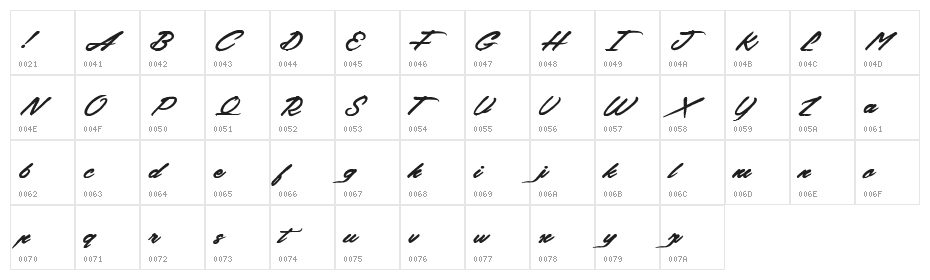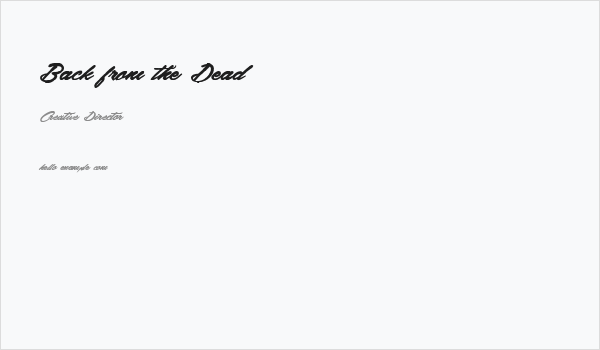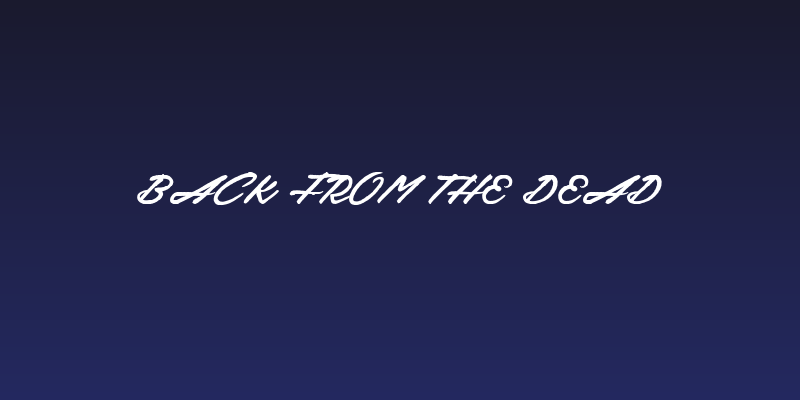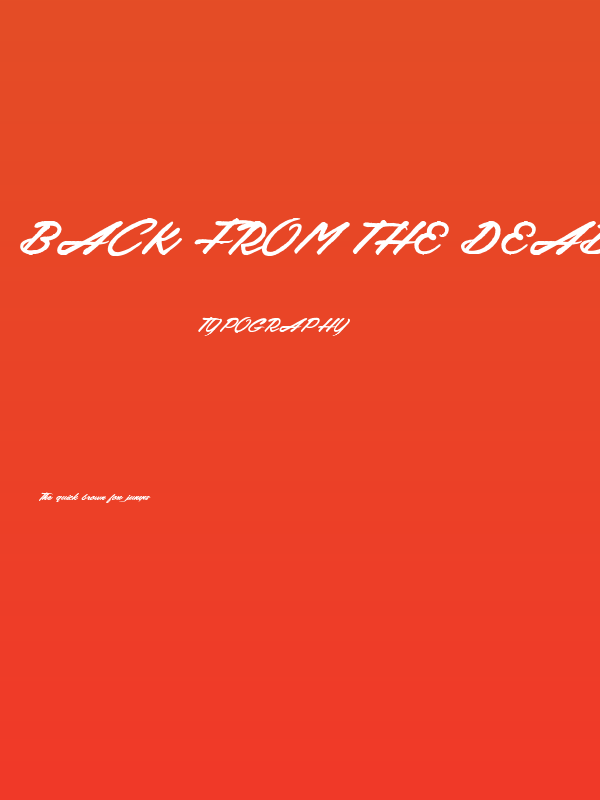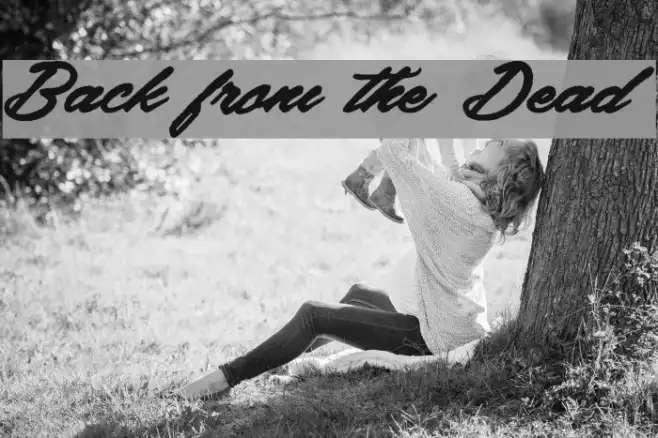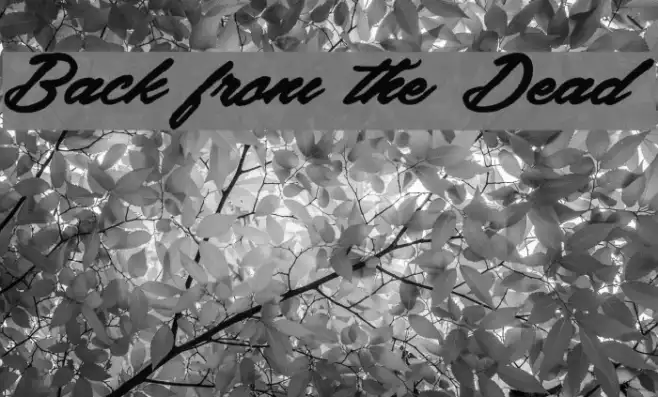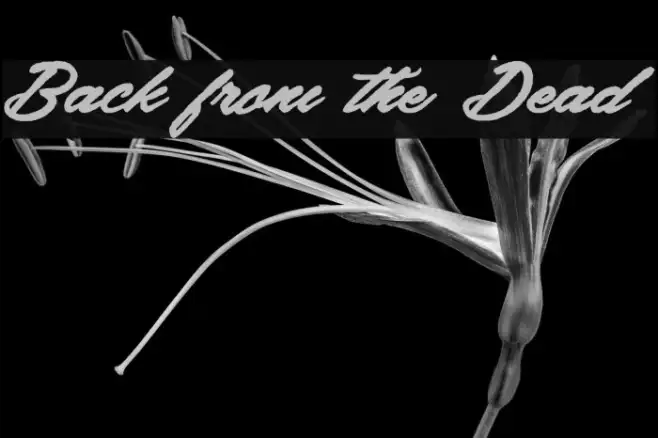
Back from the Dead Font
Back from the Dead Description
This font exudes a classic, elegant script style with a flowing, cursive design that mimics traditional handwriting. The letters are connected, creating a seamless and fluid appearance. The strokes are moderately thick, providing a bold presence while maintaining a graceful and sophisticated look. The uppercase letters are slightly larger and more pronounced, adding a touch of formality and distinction. The lowercase letters maintain a consistent flow, enhancing readability while preserving the decorative nature of the script. This font is ideal for projects that require a personal touch or a sense of elegance and refinement.
| Proposed Projects | Ideal for wedding invitations, greeting cards, personal branding, and elegant packaging designs. |